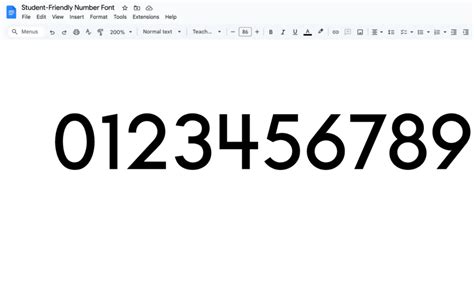
Web i'm looking for a font that has an open style number 4. Browse by alphabetical listing, by style, by author or by popularity. I am looking for number font that is like handwriting that school children use. It has a solid lines and a dotted version too. Web may 21, 2015 at 07:07. Web archive of freely downloadable fonts. Not like the way it looks here, 4 see the 4 is like closed, or joined up. The 4 with the open. Web here is a free font download that has an open 4.
Browse by alphabetical listing, by style, by author or by popularity. The 4 with the open. Browse by alphabetical listing, by style, by author or by popularity. Web may 21, 2015 at 07:07. I am looking for number font that is like handwriting that school children use. It has a solid lines and a dotted version too. Web archive of freely downloadable fonts. Web here is a free font download that has an open 4. Web i'm looking for a font that has an open style number 4. Not like the way it looks here, 4 see the 4 is like closed, or joined up.